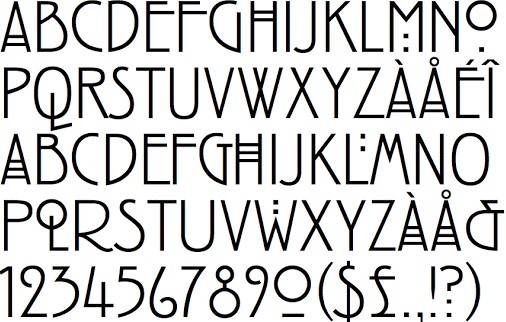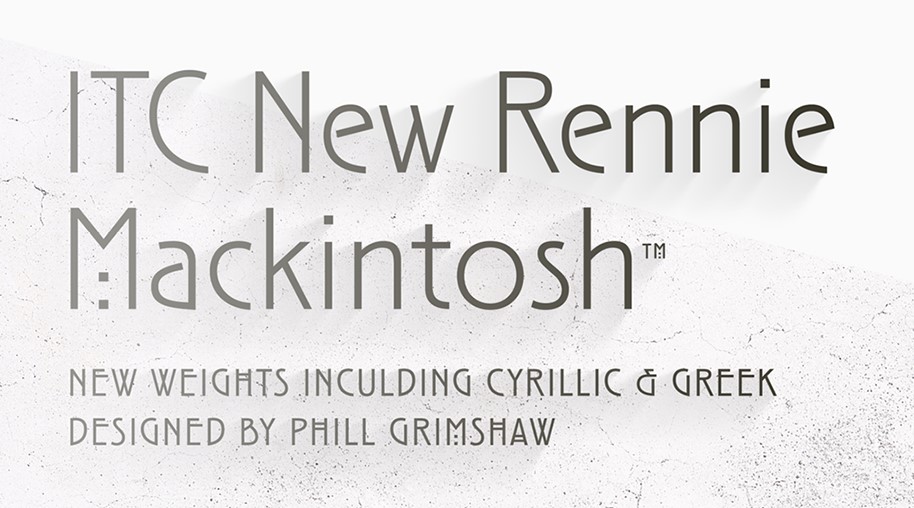
Introducing you to the Rennie Mackintosh ITC Font which is considered one of the best display typefaces. The slender of this typeface is great and it saves so much space but doesn’t compromise the styling.
If you want to add some Arts & Crafts taste to your next project then you should start using this font with Bernier font because, for this reason, you will require a typeface that has an international character set.
This typeface is good for Games and apps, as well as for headlines and print media because of its coat’s antique vibe. This unique design was by Phill Grimshaw in the year 1996.
This is a large font family that contains all types of upper and lower case characters the combination of Futura font gives a brand new look to the design that you can use anywhere.